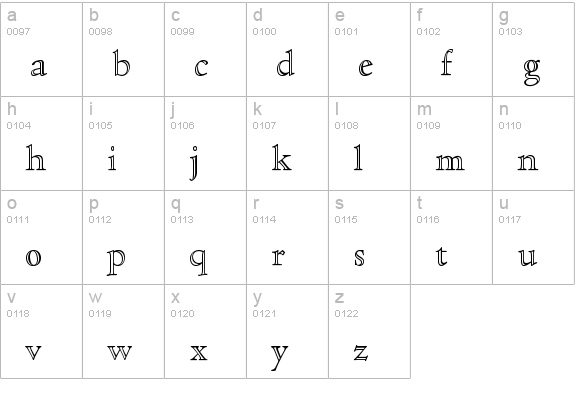
Cloister Open Face is a stylish and elegant font that exudes a sense of sophistication and charm. With its clean lines and classic appeal, this typeface is perfect for adding a touch of timeless beauty to any design project. The open face design of Cloister allows for a delicate and airy feel, making it ideal for titles, headers, and other prominent text elements. This versatile font is free to download at FontsMarket.com, making it accessible for designers and creatives looking to enhance their work with a touch of classic elegance. Whether you're creating invitations, logos, or branding materials, Cloister Open Face is sure to make a statement with its unique and refined aesthetic. Don't miss out on the opportunity to elevate your designs with the timeless beauty of Cloister Open Face. Download it for free today at FontsMarket.com and start creating stunning visuals that stand out from the rest.